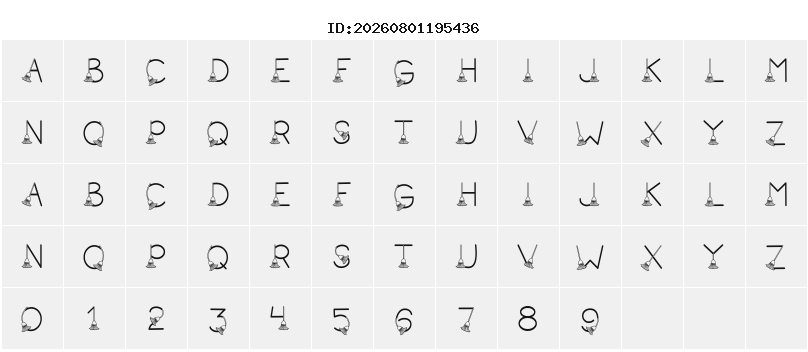
LD Broom Preview
• Font Name: LD Broom
• Full Font Name: LD Broom
About LD Broom.ttf
LD Broom.ttf is a modern, elegant sans-serif font designed for ultimate readability and visual harmony. Perfect for branding, headlines, web design, and print materials.